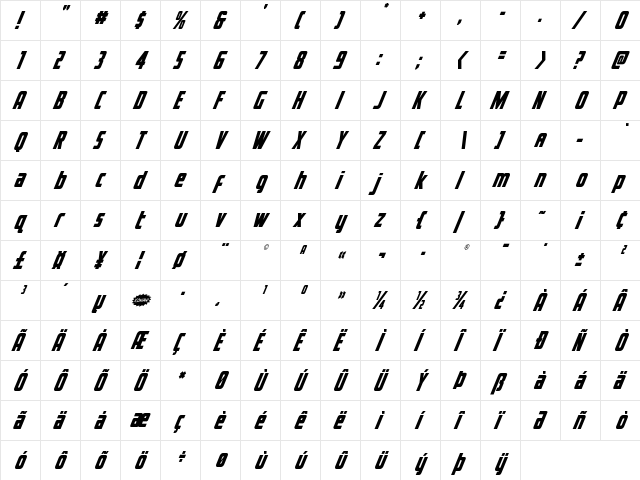
Voyage Fantastique Condensed Condensed
Design Context for Voyage Fantastique Condensed Typeface
Voyage Fantastique Condensed takes a measured approach to typography — its balanced proportions and neutral character make it a reliable workhorse for both digital and print work. Its narrow stance lets it pack a punch even in space-constrained designs.